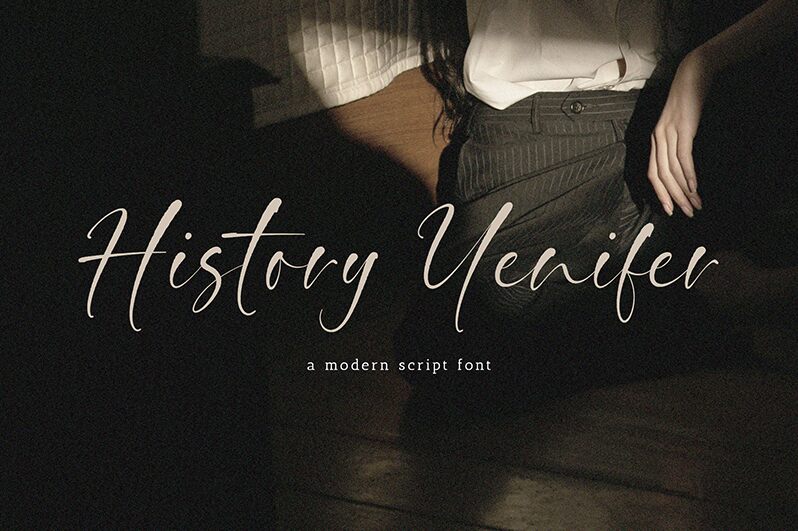
Timur Type presents History Yenifer, a bold handmade calligraphy font. The characters are graceful and curvy, and the font reflects an old-fashioned and antique style in both design and mood.
It can be used for wedding invitations and cards, quotes on framed prints and posters, vintage labels, branding and packaging, etc.